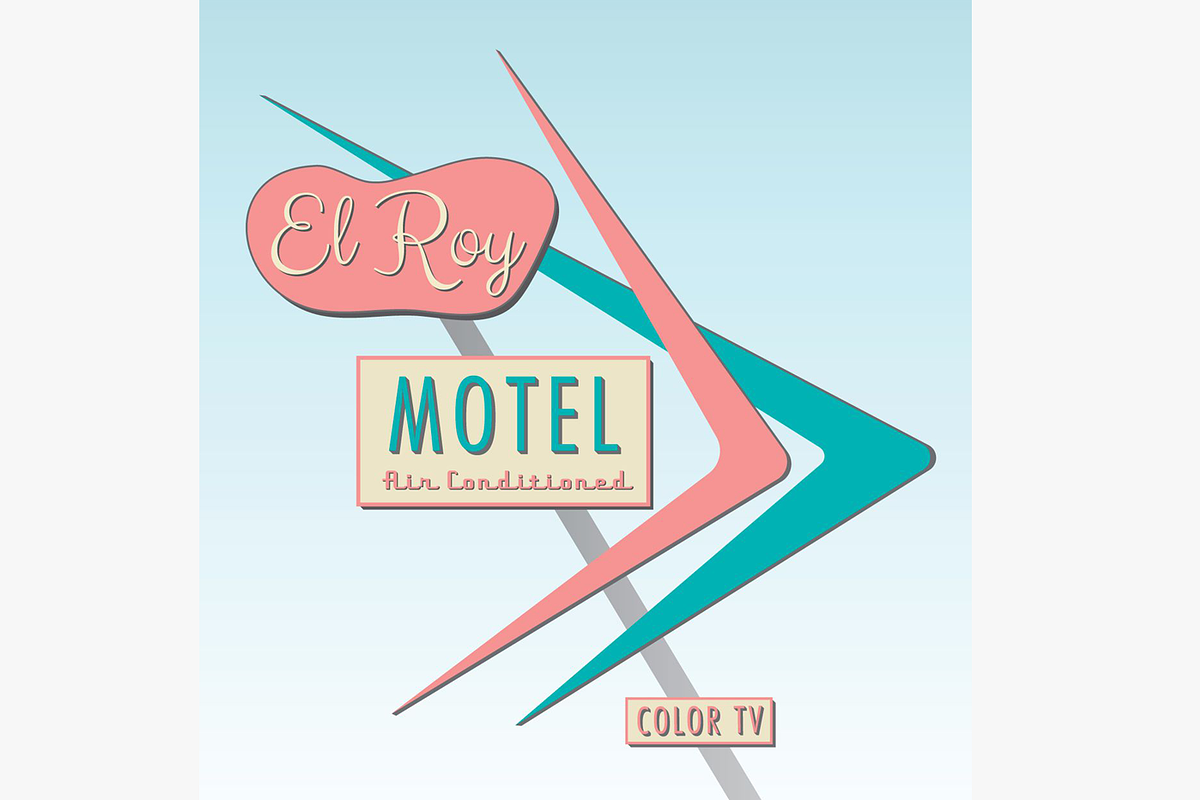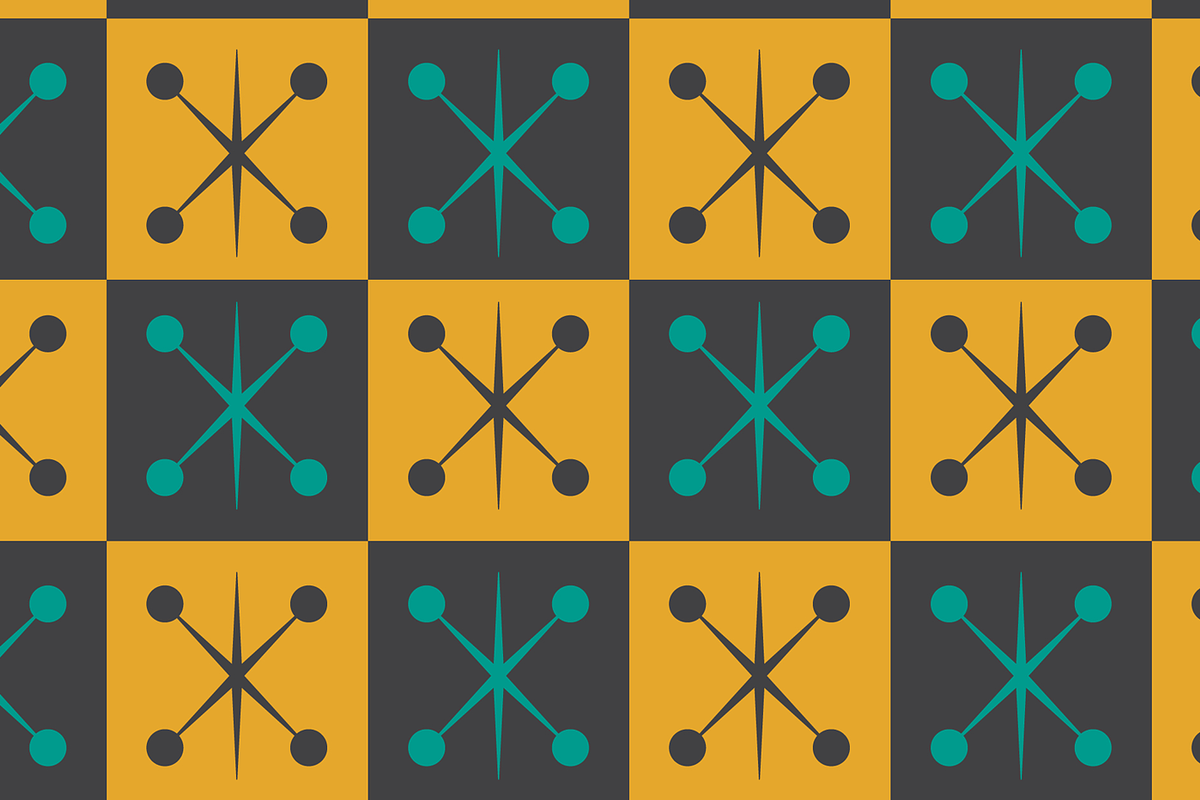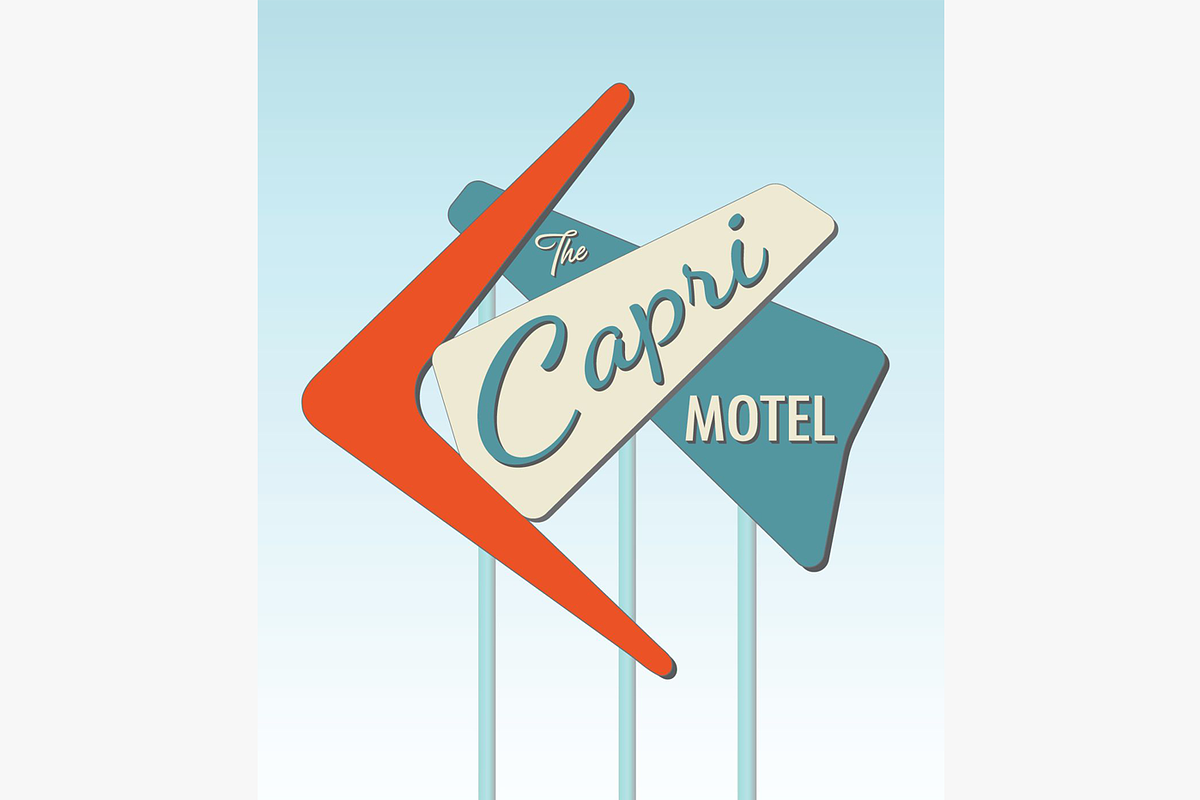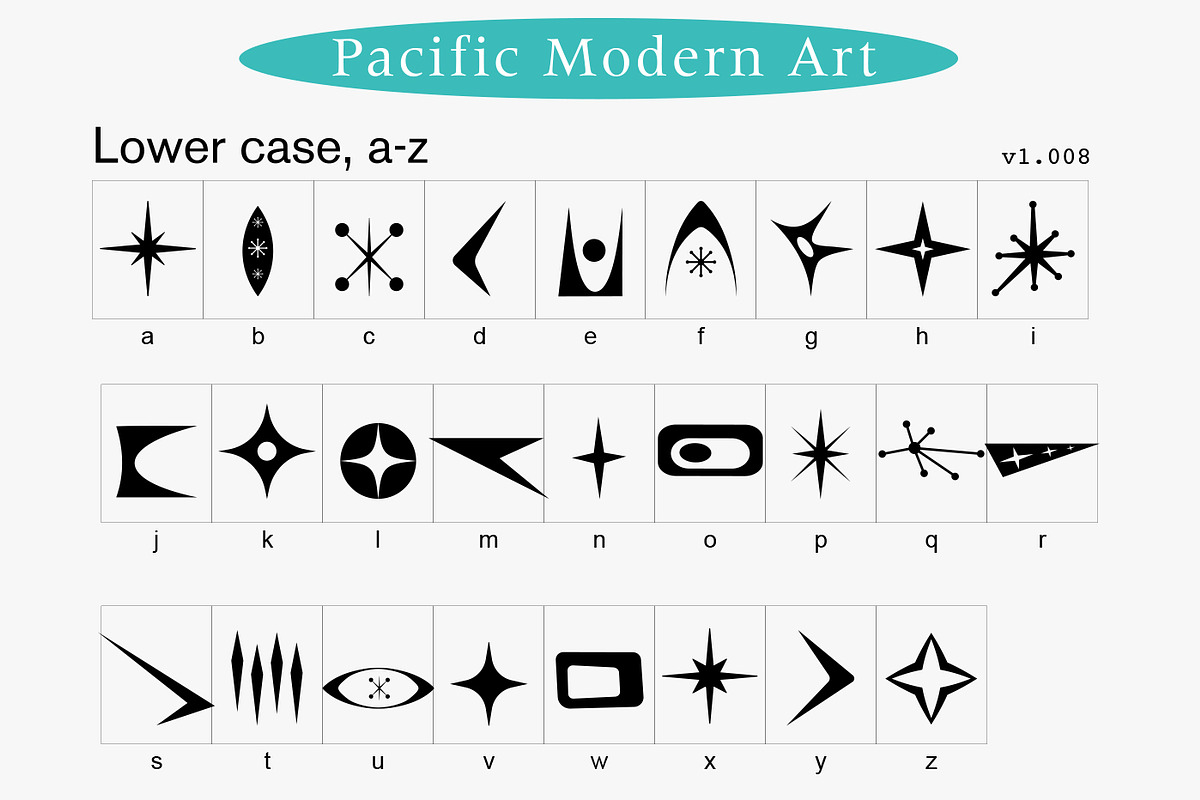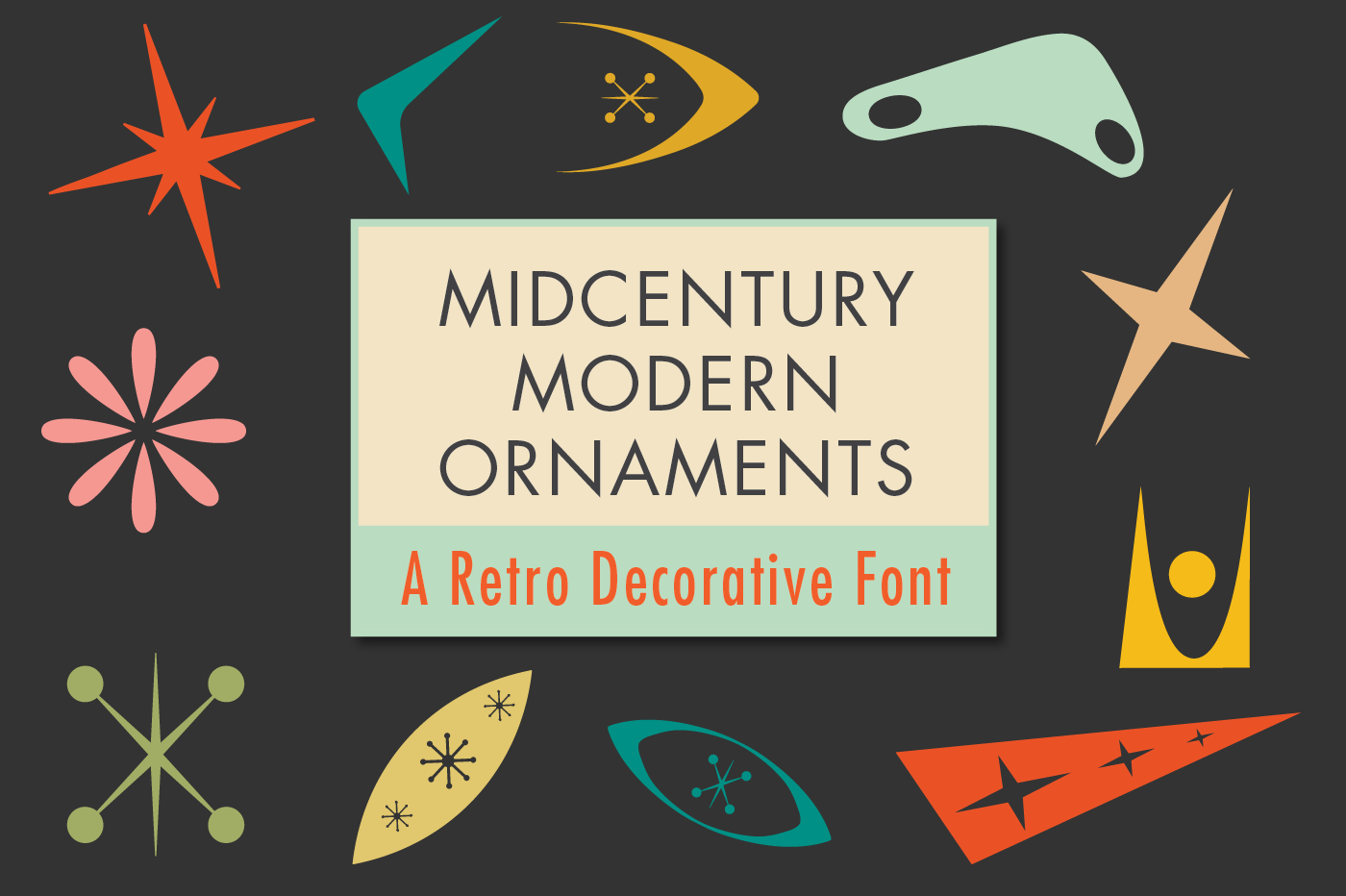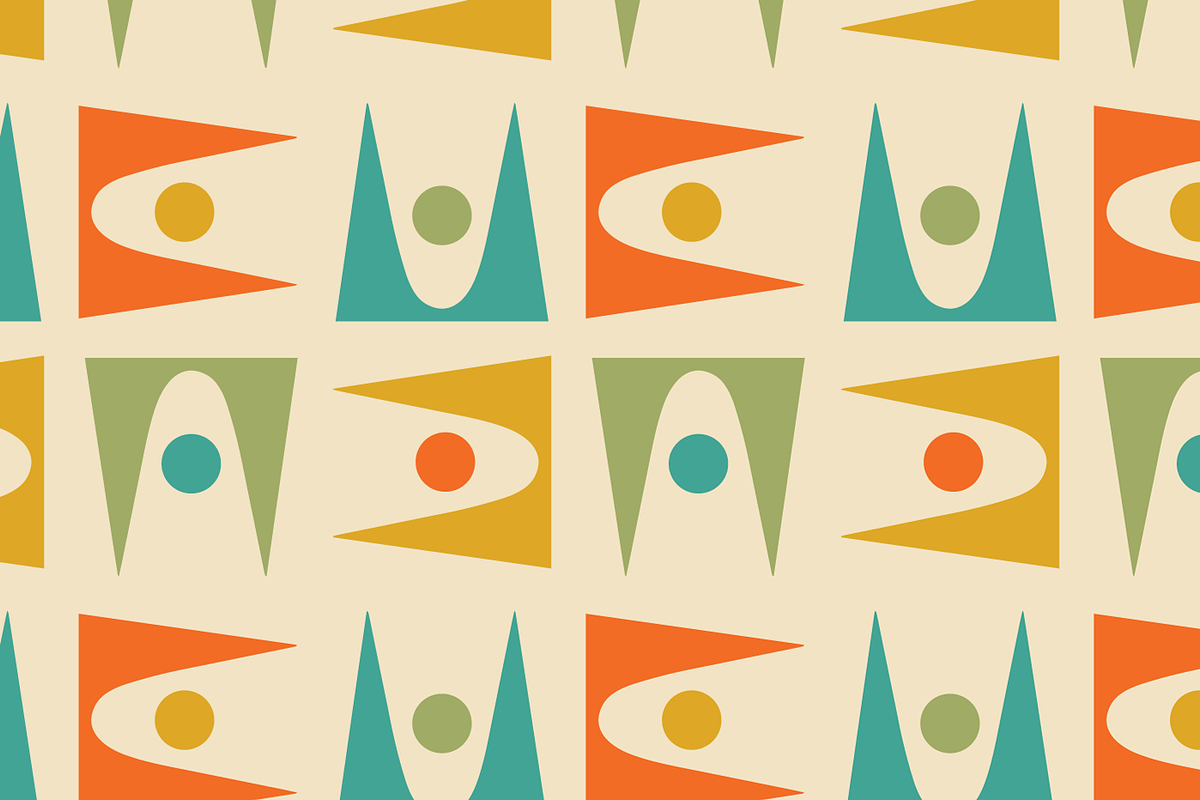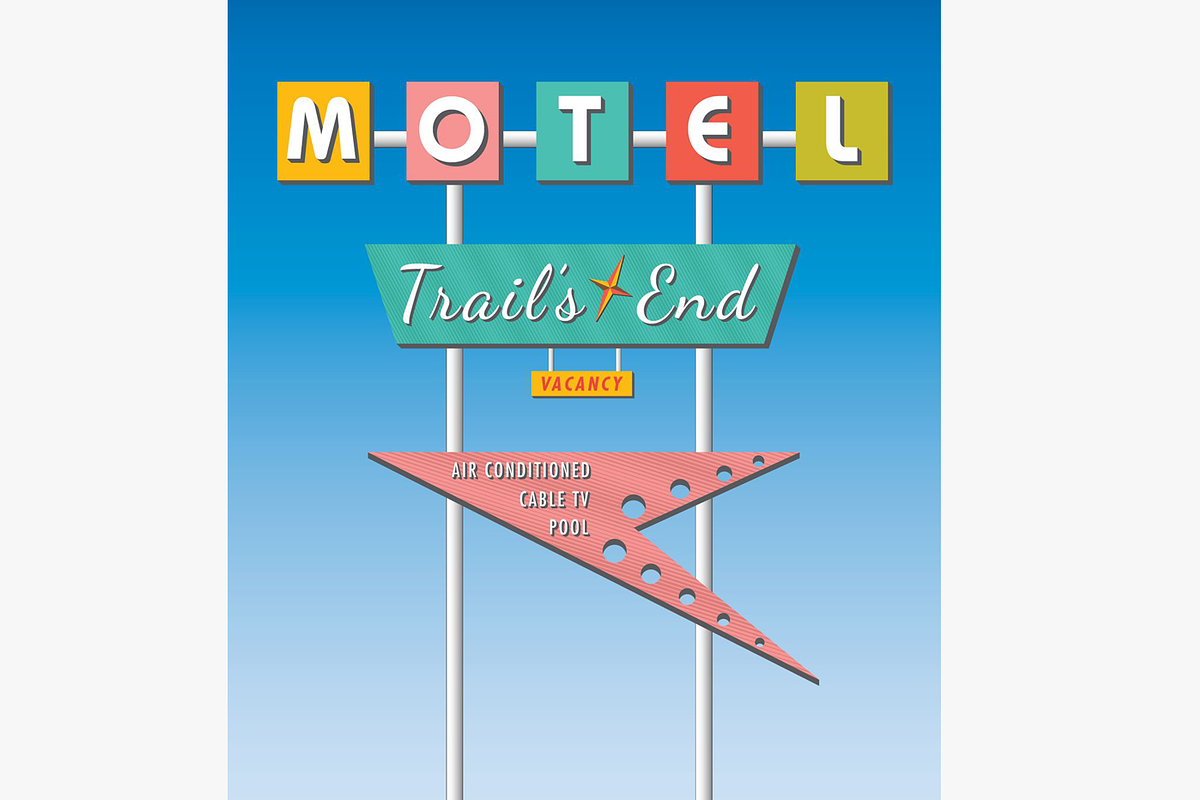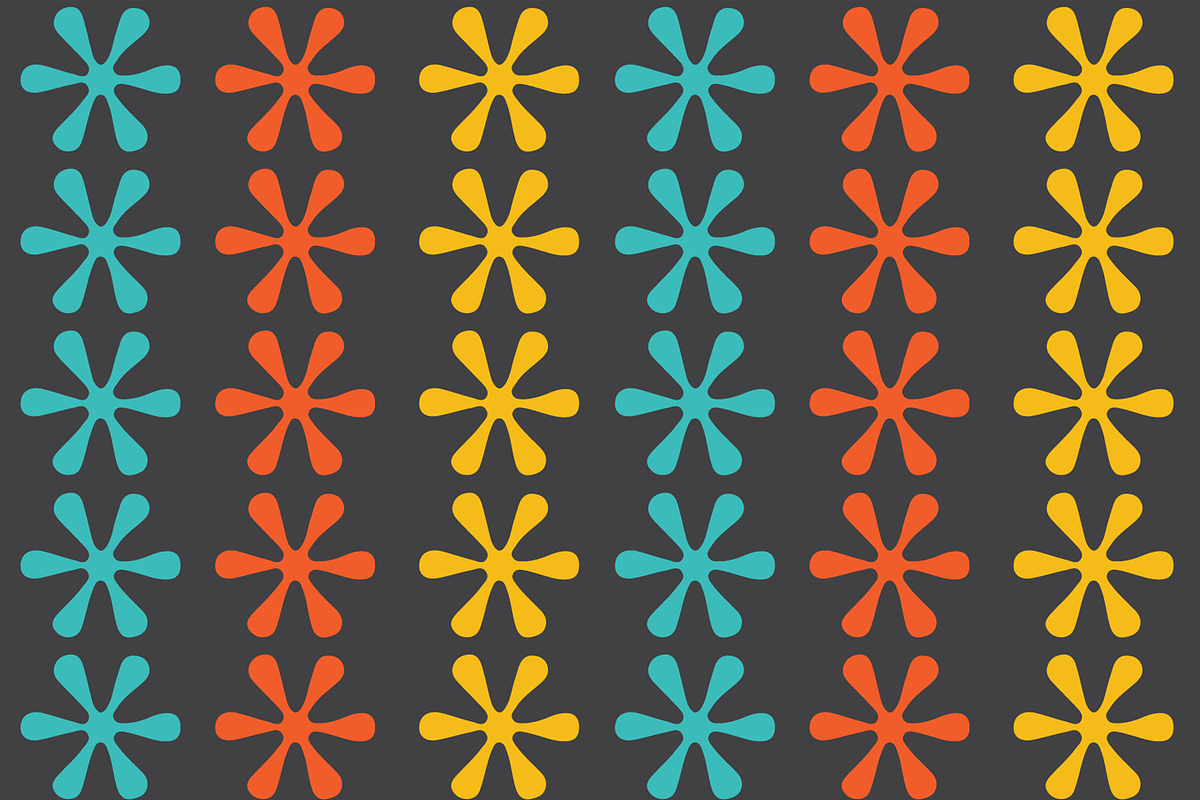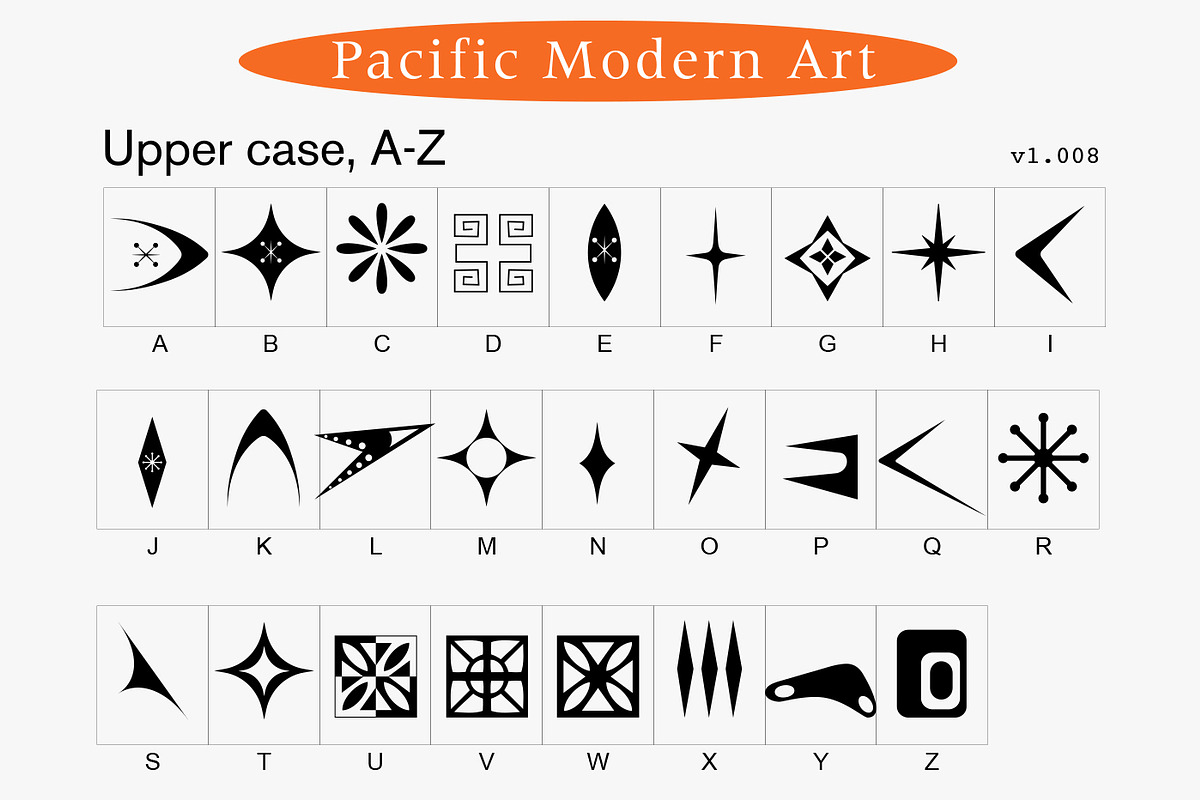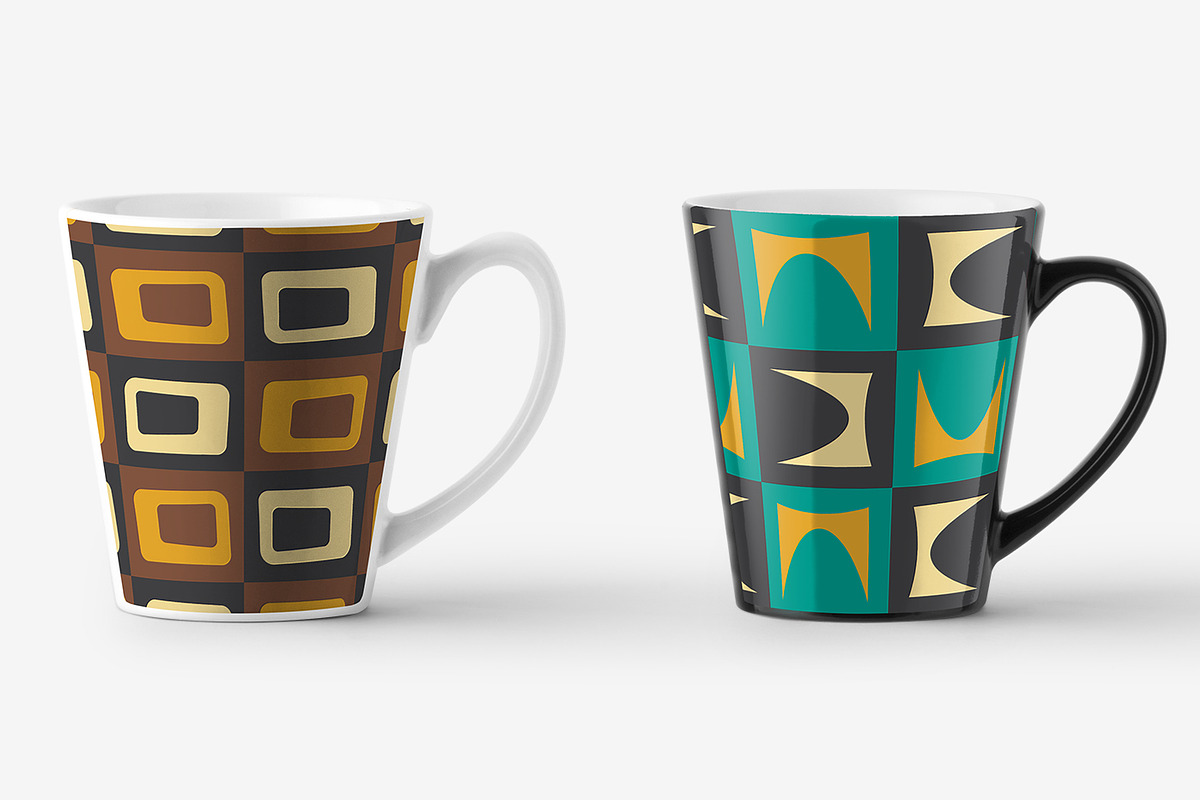
Midcentury Modern Ornaments Font
Bust out your Eames chairs and Franciscan patterned dinnerware and take a trip back to the 1950s for this fun, super retro Mid-century modern ornaments font. You can use this font to create patterns, illustrations, designs, logos, and more! This font includes 62 unique hand crafted characters in all. Included are Opentype and TrueType versions of the font as well as some demo files. --- What's included: - Mid-Century Modern Oraments Opentype - Mid-Century Modern Oraments TrueType - Demo files that list each character's shape equivalent as well as a copy and paste all fonts file (.AI & .EPS in CC and CS6 format) Be sure to check out all my mid-century modern patterns as well! https://creativemarket.com/pacific-modern-art/3110951-Mid-Century-Patterns-Ultra-Bundle --- NOTE, any mock up images shown in this listing are not included in your purchase. If you have any questions, feel free to message me, I hope you enjoy Mid-Century Modern Ornaments!